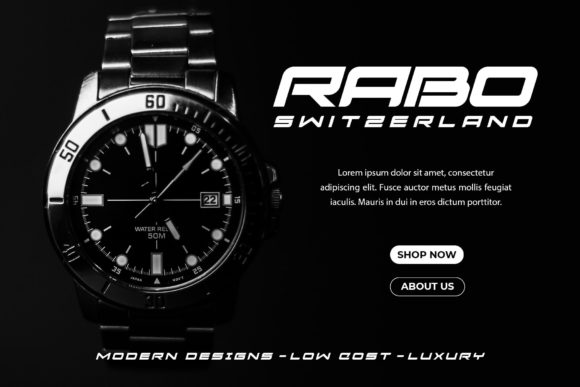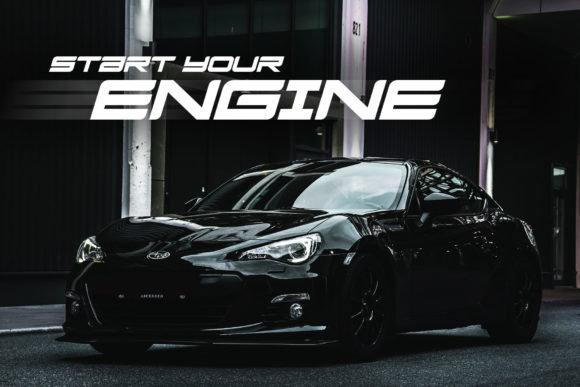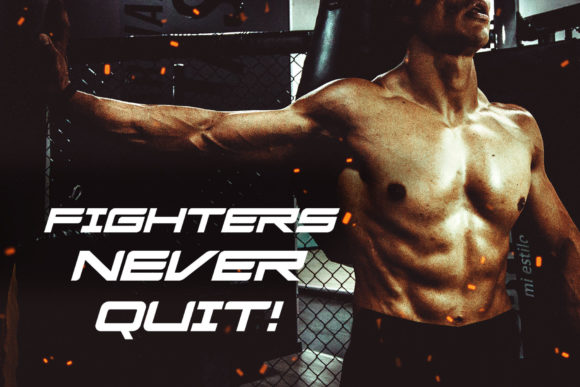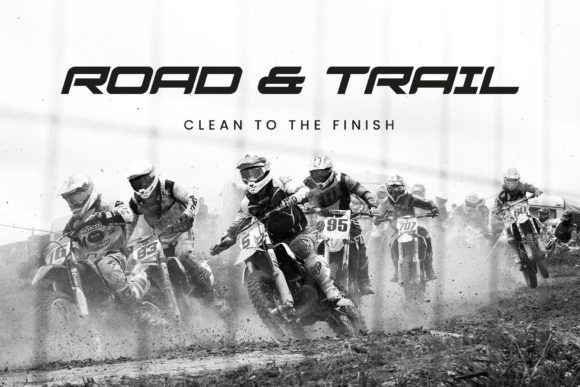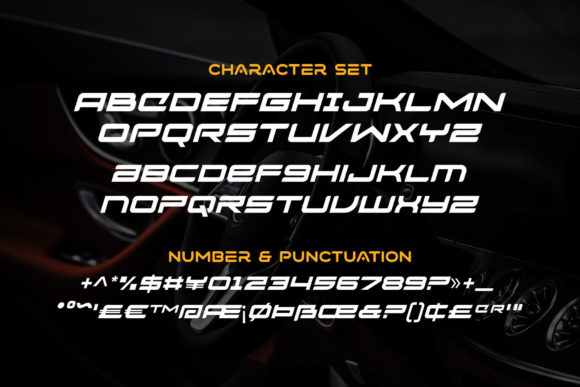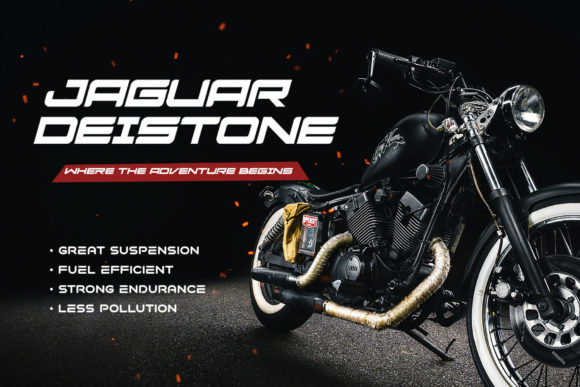
Introduction to Siegra Font
Have you ever stared at a blank page, trying to find the perfect font to elevate your creative project? The words, the images, the message – everything depends on the right typography. For designers, the quest for that perfect font is a constant challenge. But what if you could unlock a bold, assertive display font that would make your poster, flyer, or print stand out? Welcome to the world of Siegra Font – a game-changer for designers and creatives.
With its cool, bold aesthetic, Siegra Font is the perfect design resource for any project. Its PUA encoded glyphs and swashes ensure seamless access to all the characters you need, making it a high-quality addition to your design arsenal. Whether you’re working on a free download or a paid project, Siegra Font’s transparent background and versatile design make it a valuable asset for any creative endeavor.
Key Features of Siegra Font
- Unique and stylish design, with a modern aesthetic that sets it apart from other fonts in its class.
- Includes a comprehensive character set, covering a wide range of languages and characters.
- Perfect for designers and creatives working on high-end projects, the Siegra Font is a valuable addition to any design library.
Honest Review: Siegra Font
- ✨ High-quality design: The Siegra Font has a clean and modern aesthetic that’s perfect for creative projects.
- ✨ Versatile: The font is suitable for a wide range of design applications, from headings to body text.
However, I do have a few minor complaints:
- ⚠️ Limited font weight options: I wish there were more weight options available to give designers more flexibility in their designs.
- ⚠️ Not ideal for large blocks of text: The font can start to look a bit busy when used in large quantities, so it’s best to use it in moderation.
Overall, I’m really impressed with the Siegra Font. It’s a great design resource that’s perfect for adding a touch of sophistication to your creative projects. With a little creativity, the limitations can be worked around, and the end result is well worth it.
The Siegra Font is ideal for a variety of creative projects, including:
Tips for Getting the Most Out of Siegra Font
To get the most out of the Siegra Font, consider the following tips:
- Use the Siegra Font on a transparent background to create a modern and sleek look.
- Combine the Siegra Font with high-quality images to create visually appealing designs.